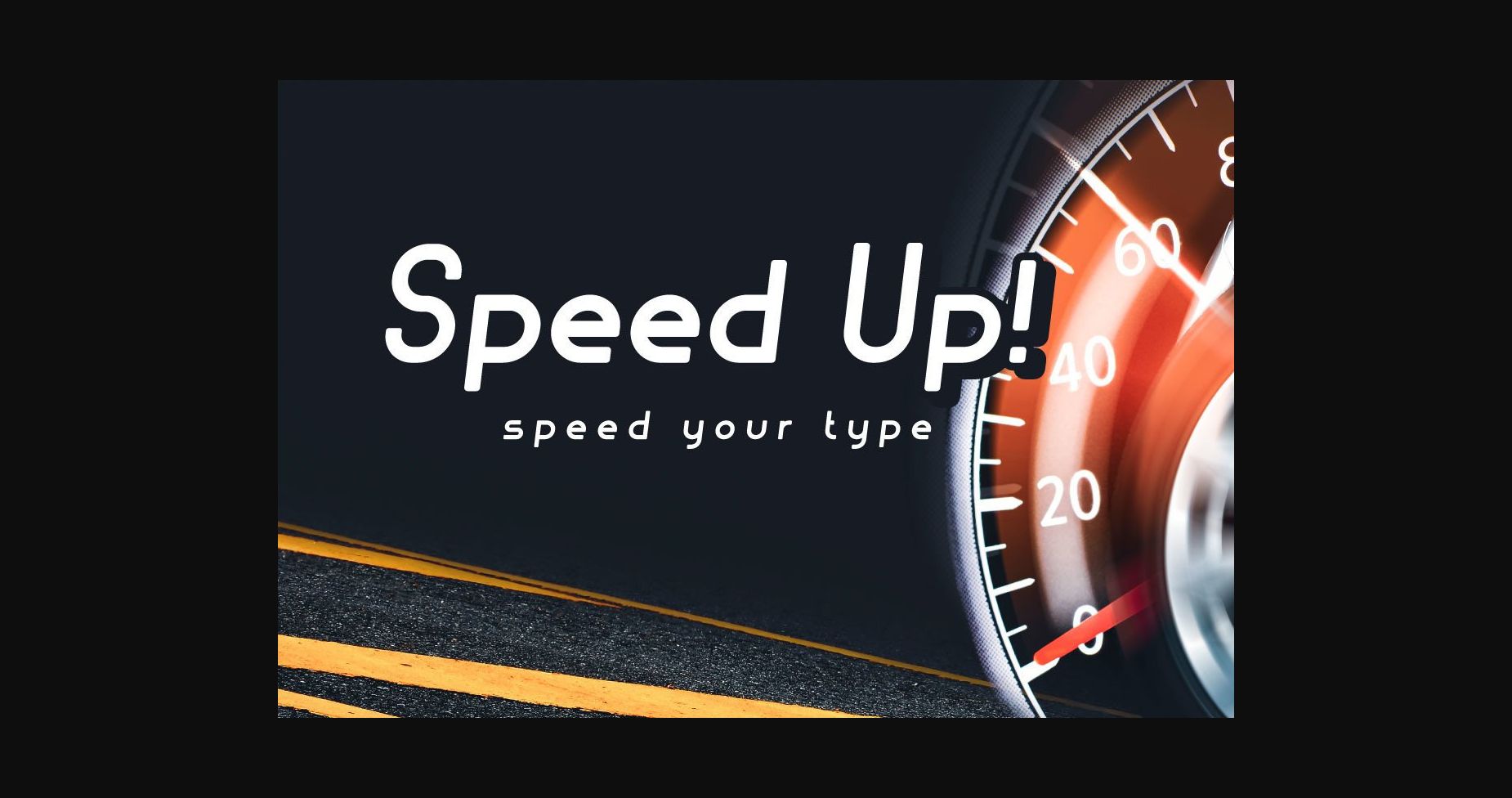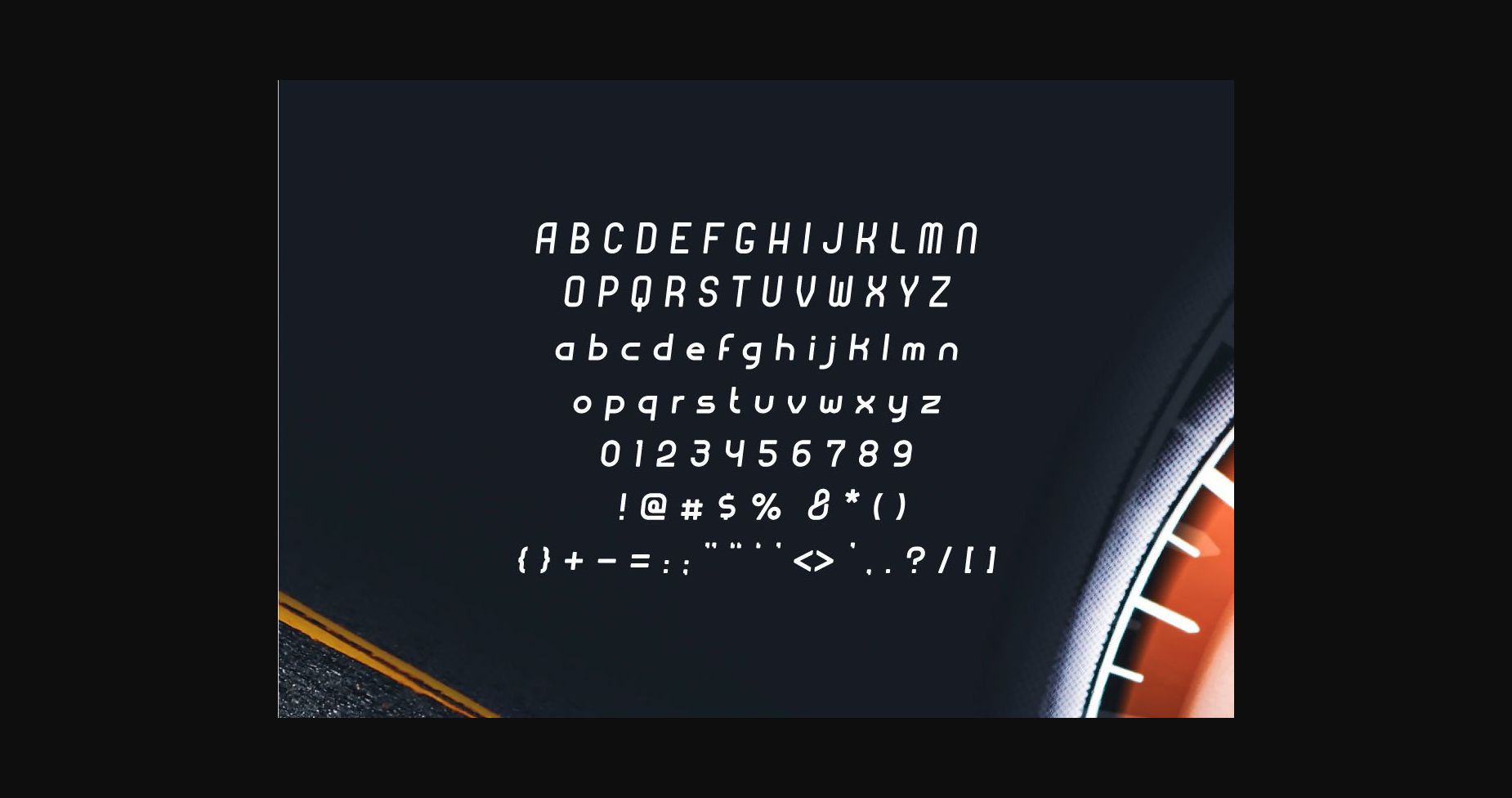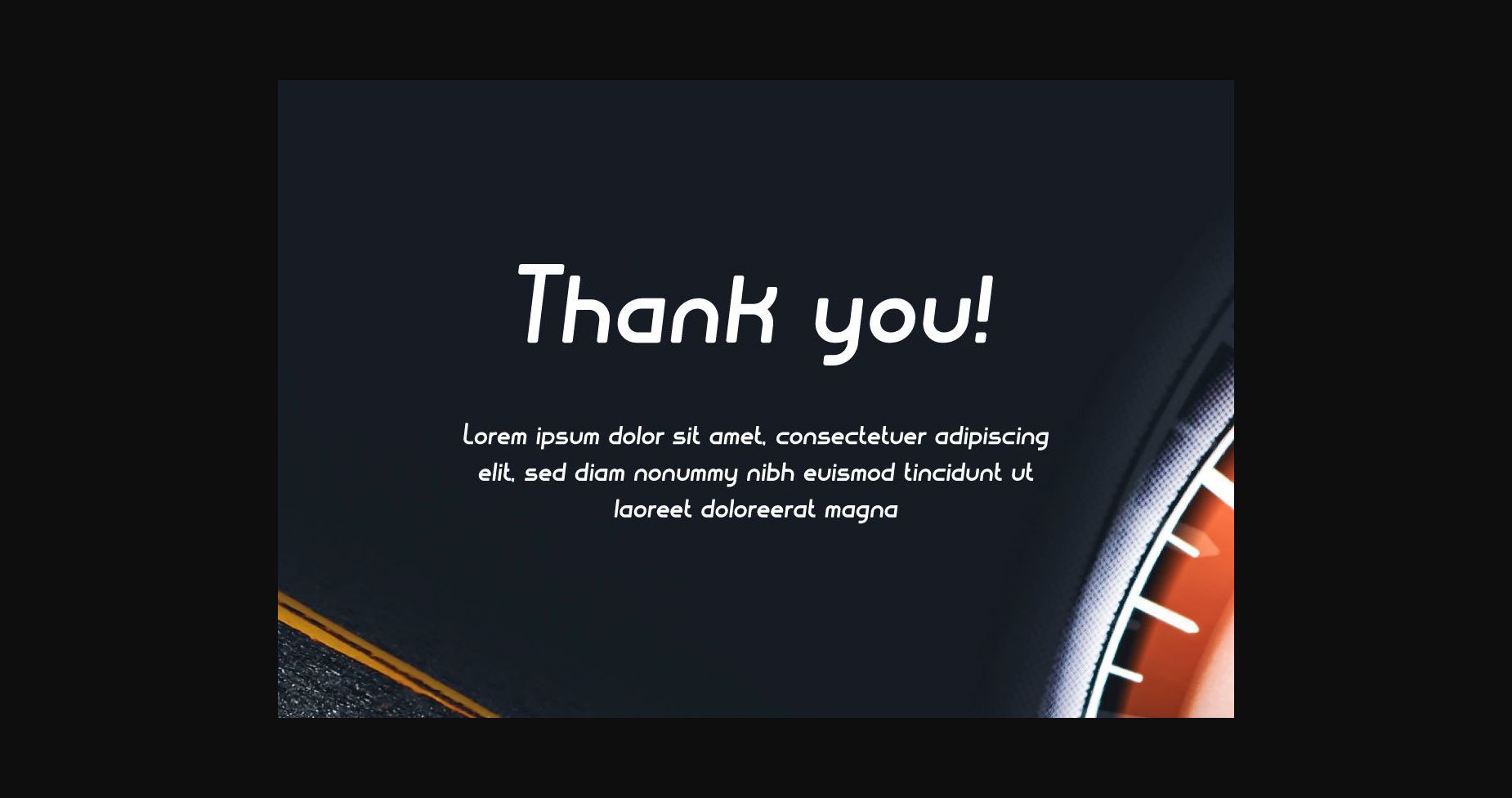
Speed Up is a minimalist and clean sans serif font that exudes professionalism and class. This font was particularly crafted for those who need a beautiful and refreshing look to their designs.